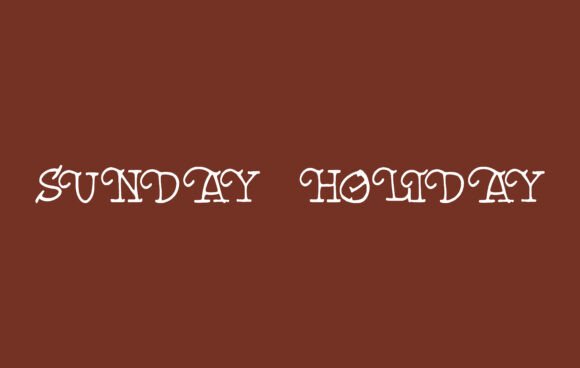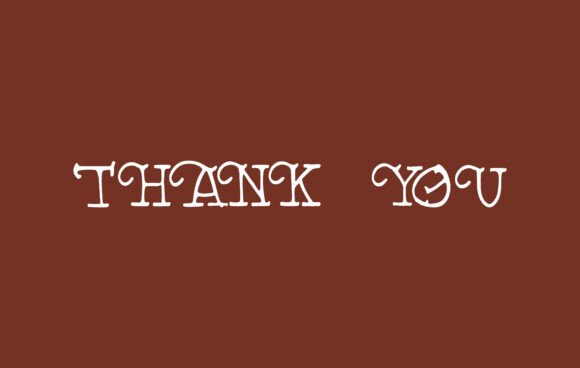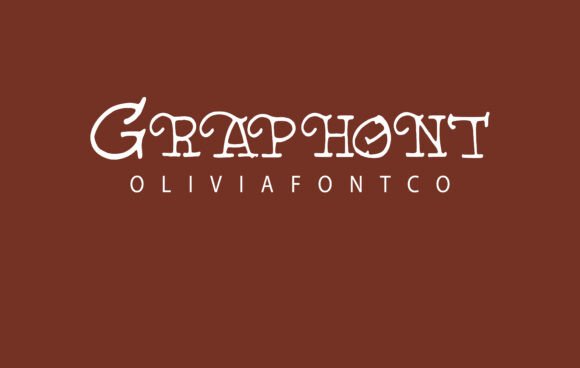
Introducing Graphont Font: Adding a Touch of Whimsy to Your Designs
In the world of typography, fonts can make or break the aesthetic of a design. Whether you’re working on a kids’ project, crafting a storybook title, or simply looking to add some personality to your creative endeavors, the right font can elevate your work from ordinary to extraordinary. This is where Graphont Font comes into play – a fun, sketchy serif font that brings swirly accents and hand-crafted charm to the table.
What is Graphont Font?
Graphont Font is a unique, playful typeface designed to infuse your designs with a sense of whimsy and artistic flair. Its sketchy, hand-drawn appearance gives it a distinctly human touch, making it perfect for projects that require a bit of personality. The font features swirly accents that add an extra layer of visual interest, setting it apart from more traditional serif fonts.
Key Features of Graphont Font
- Sketchy Serif Design: Graphont’s base design is a serif font with a sketchy twist, giving it a hand-crafted look that’s both charming and eye-catching.
- Swirly Accents: One of the standout features of Graphont is its use of swirly accents. These add a playful touch to your text, making it perfect for projects aimed at a younger audience or for adding a bit of flair to creative designs.
- Hand-Crafted Charm: The font’s hand-drawn nature means each letter has a unique character. This charm is something that’s often lost in more uniform, computer-generated fonts.
- Playful and Artistic Flair: Graphont is designed to stand out. Its playful and artistic vibe makes it an excellent choice for designers looking to add some fun to their projects.
Perfect Uses for Graphont Font
Given its playful and artistic nature, Graphont Font is well-suited for a variety of projects. Here are some of the ideal uses for this versatile font:
- Kids’ Projects: Whether you’re working on educational materials, activity sheets, or storybooks, Graphont’s fun and engaging design is sure to captivate young audiences.
- Storybook Titles: Add a magical touch to your storybook titles with Graphont. Its whimsical design can help bring your story to life right from the cover.
- Creative Designs: If you’re looking to add a bit of personality to your creative projects, such as posters, flyers, or social media graphics, Graphont can help your design stand out.
Tips for Using Graphont Font Effectively
To make the most of Graphont Font, consider the following tips:
- Pair with Simpler Fonts: For body text, consider pairing Graphont with a simpler, more readable font to create visual contrast and ensure your main content is easy to read.
- Use for Headings and Titles: Graphont’s playful design makes it perfect for headings and titles. Use it to draw attention and add personality to these key elements.
- Experiment with Colors and Textures: Given its sketchy nature, Graphont looks great with a variety of colors and textures. Don’t be afraid to experiment and find the combination that works best for your project.
Graphont Font is a delightful addition to any designer’s toolkit. Its unique blend of sketchy serifs, swirly accents, and hand-crafted charm makes it the perfect choice for projects that demand a playful, artistic flair. Whether you’re working on kids’ projects, crafting storybook titles, or simply looking to add some whimsy to your creative designs, Graphont is sure to impress. So, why settle for ordinary when you can make your designs stand out with the extraordinary Graphont Font?